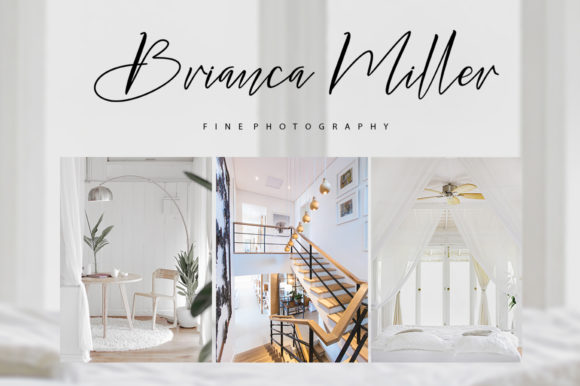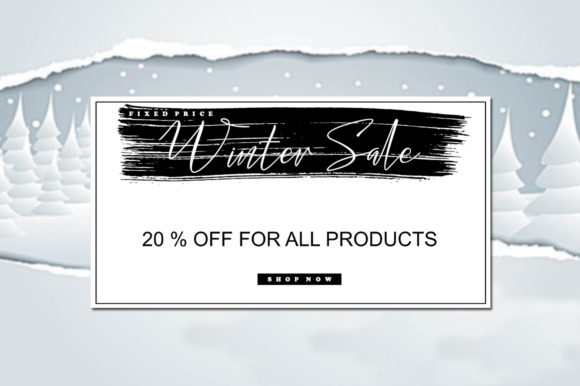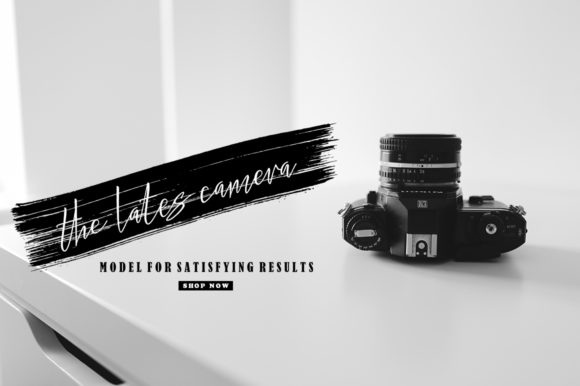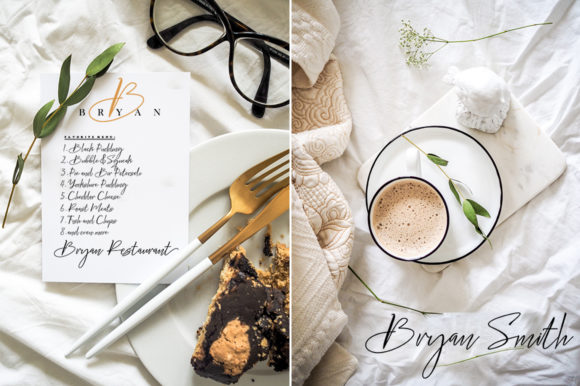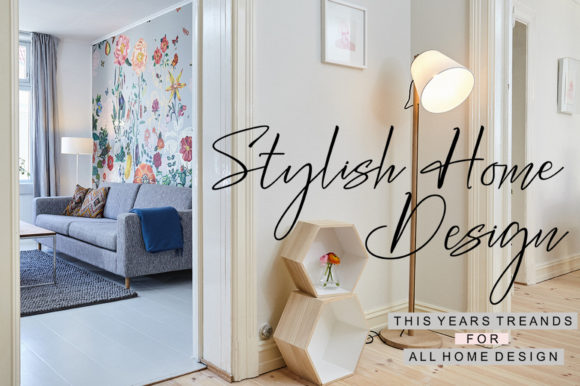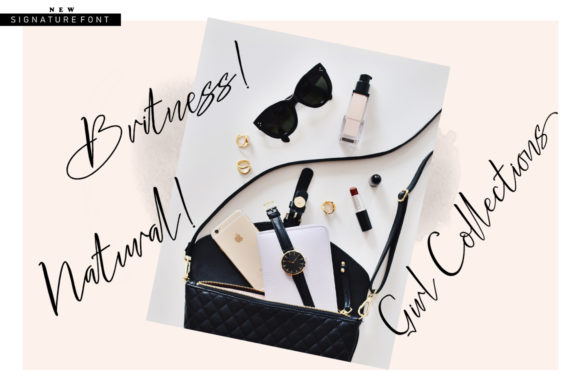
Introduction to Bellgonate Script Font
The Bellgonate is an unique signature script, with a classical touch.
Itโs fancy letters have an elegant italic style, while the swirls and swashes give it a modern touch Because of itโs elegant composition, itโs suitable for a large range of uses such as logos, branding, packaging, and much more.
Key Features of Bellgonate Script Font